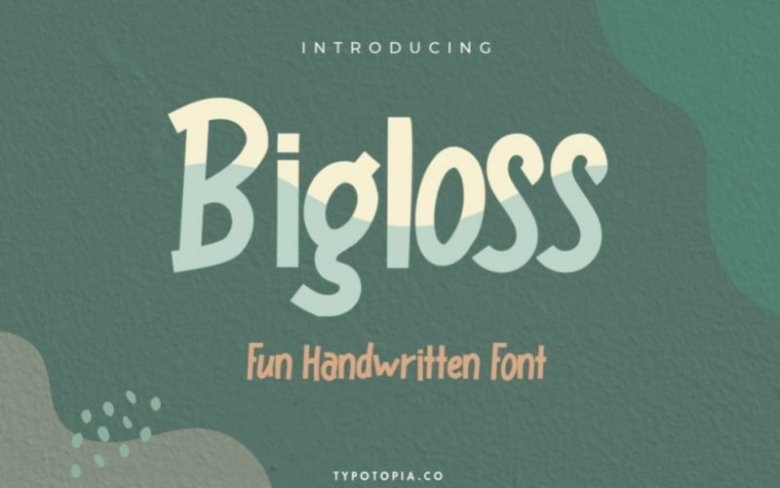
Bigloss Display Font Free
Bigloss Typeface come with Bold Funny look design styles. This lovely font would be perfect to combine in your design. Suitable for digital lettering, logo, t-shirt, print, business cards, branding materials, quotes, nature photography, etc, made with hand painted and carefully crafted.